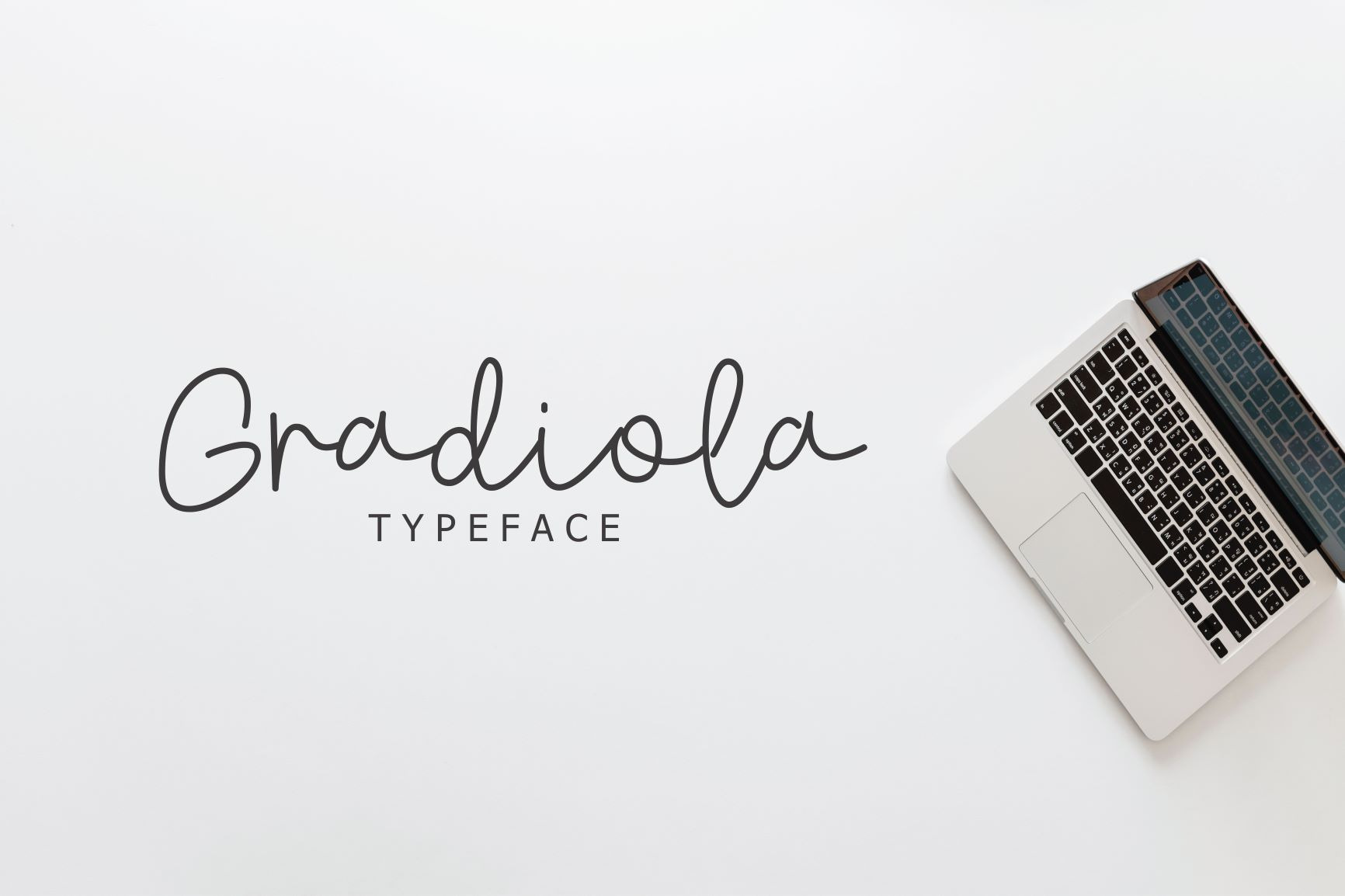
Gradiola Font
Hello Guys.. Gradiola Script Font is a beautiful font which contains uppercase and lowercase letters and numbers by Faras Dina. It’s perfectly suited to signature, stationery, logo, branding, poster, social media, ad banner, wedding invitation, greeting card, etc. Thank you and enjoy